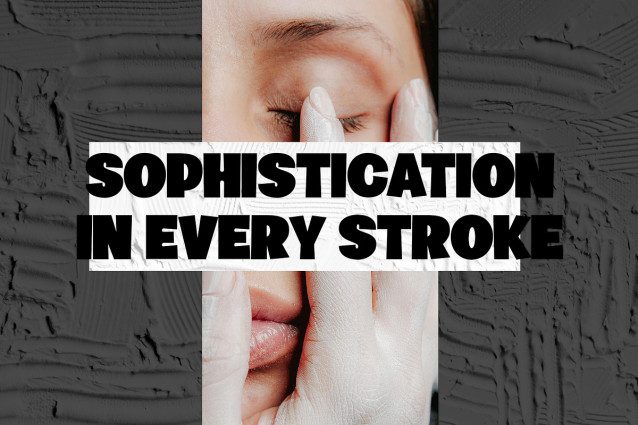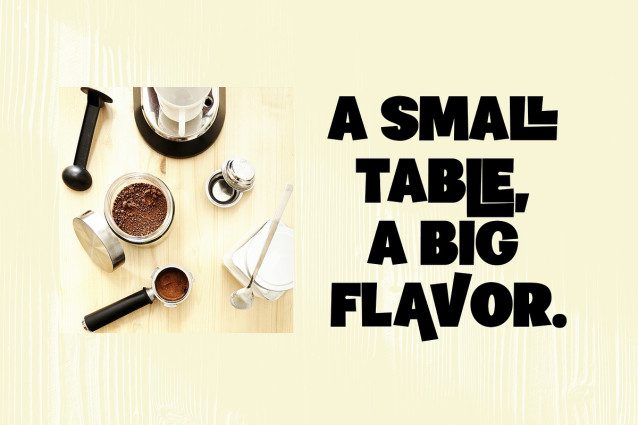
Fathera Font
Fathera Font a new and playful display font. It blends modern style with a touch of fun and elegance, making it versatile for both formal and creative projects. Packed with alternates and ligatures, this font lets you explore endless design possibilities and bring more character into your work. Perfect for branding, packaging, posters, or any project that needs a distinctive and lively feel.